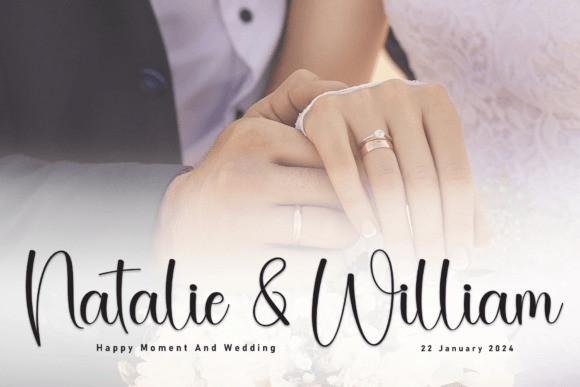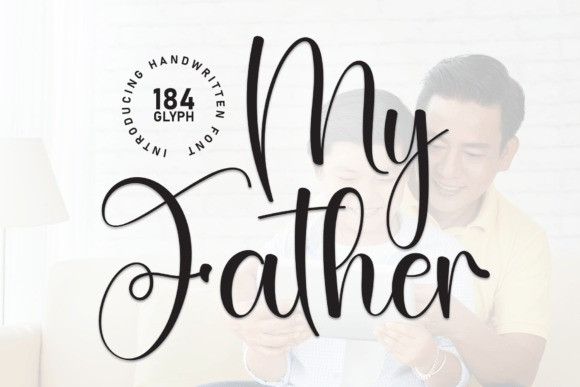
My Father Script Font
My Father Script Font is a sweet and friendly handwritten font. Its natural and unique style makes it incredibly fitting to a large pool of designs. The only limit is your imagination!